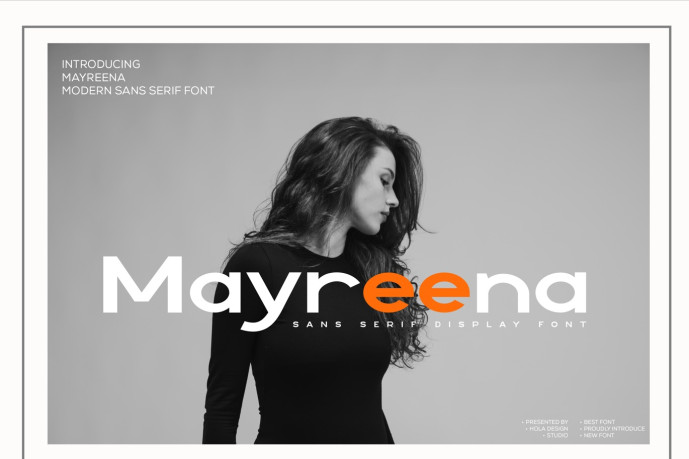
Mayreena Font
Designer: holadesignstd
Mayreena Font Ready to be used for your creations, such as labeling, film scenes, posters, film titles, concerts, album covers, logos and much more.